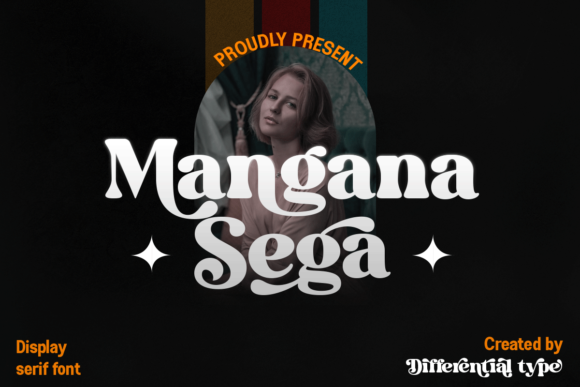
Journey back to the era of classic elegance with Mangana Sega, a captivating display serif font that oozes retro charm. Its bold strokes and refined serifs evoke a sense of nostalgia, while its modern design keeps it relevant and contemporary. Let Mangana Sega transport your projects to a bygone era of sophistication and style.
Step into a world where typography meets artistry. Mangana Sega's alternate characters and ligatures dance across your designs, adding a touch of elegance and luxury that's sure to captivate your audience. Each letterform is crafted with meticulous attention to detail, resulting in a font that exudes timeless beauty and sophistication.
With Mangana Sega, you'll unlock a world of creative possibilities. Its PUA encoding allows for effortless access to a treasure trove of alternates and swashes, empowering you to infuse your designs with intricate details and captivating flourishes. Whether you're crafting logos, branding, posters, or digital designs, Mangana Sega will elevate your work to new heights of visual appeal.
Let Mangana Sega be your creative companion as you embark on a typographic odyssey. Its versatility knows no bounds, making it the perfect choice for a wide array of projects. From eye-catching headlines that demand attention to elegant body copy that flows effortlessly, Mangana Sega seamlessly adapts to your design vision.